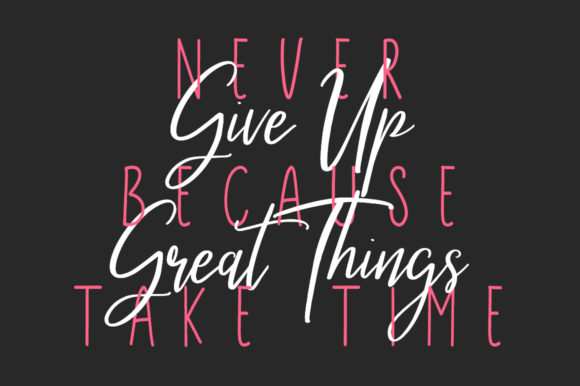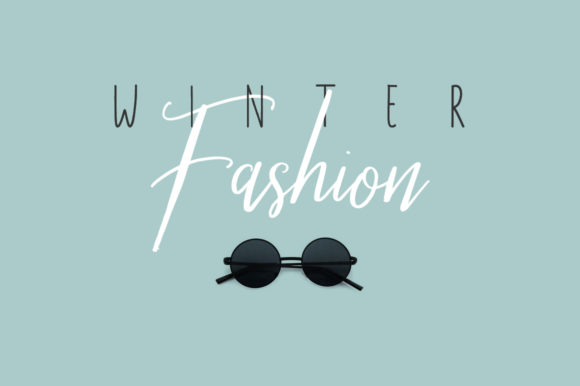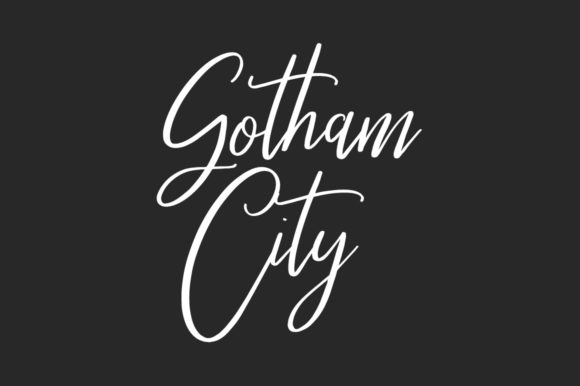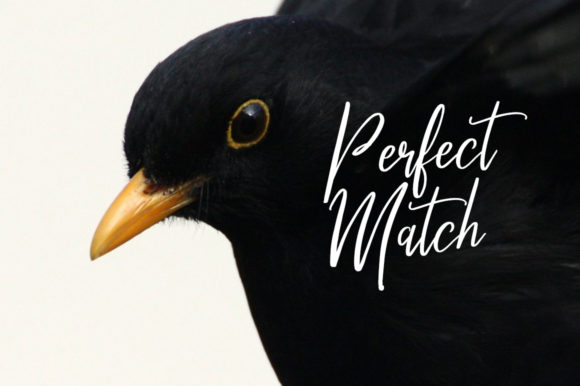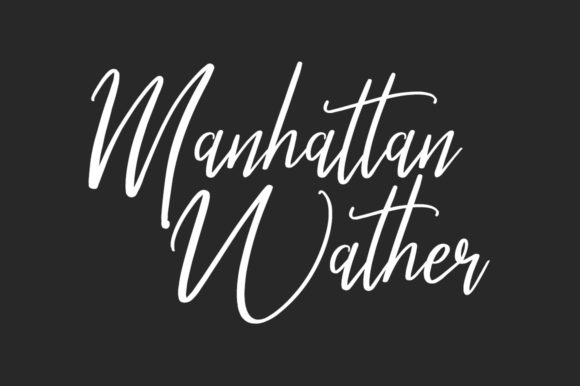
About Fturism Font
Fturism is a trendy handwritten font. It combines a great sans serif with a cute script. Combine these amazing styles to create cute logos, sweet greeting cards and lovely stationery!